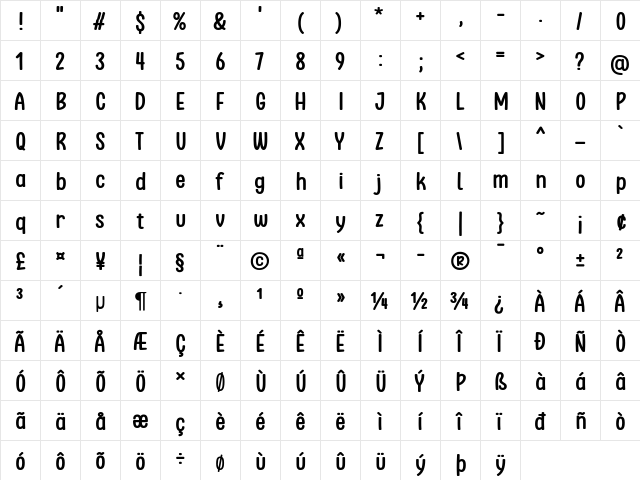
Clambake October Six Bold
Design Context for Clambake October Six Typeface
Clambake October Six takes a measured approach to typography — its balanced proportions and neutral character make it a reliable workhorse for both digital and print work. The heavy weight commands attention and anchors typographic hierarchies.